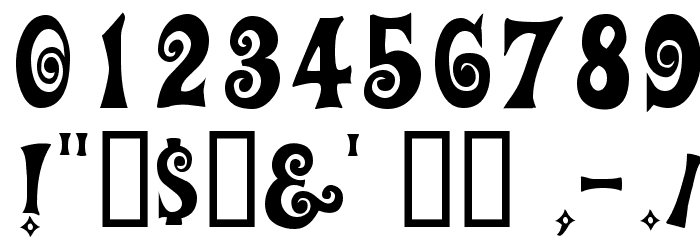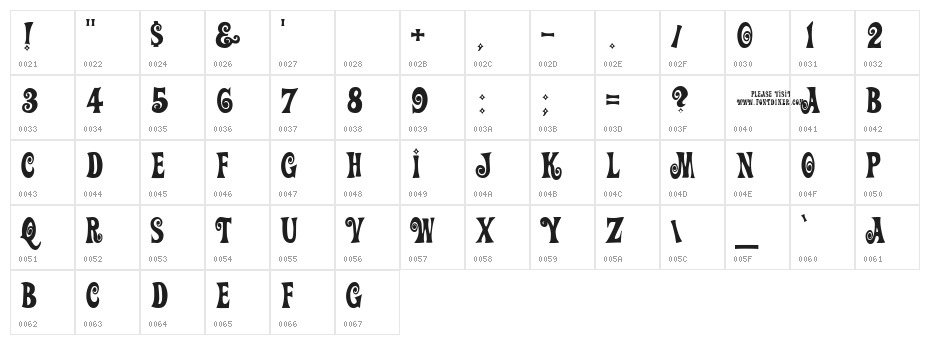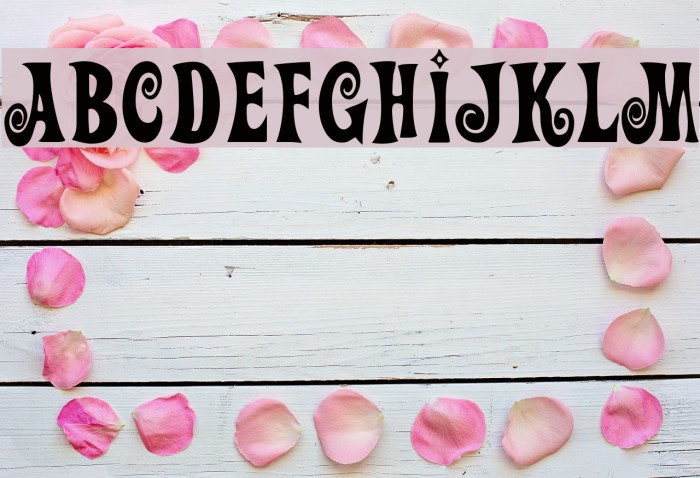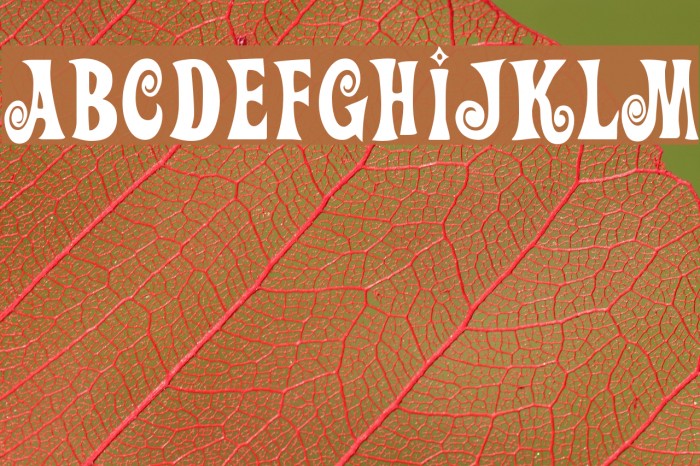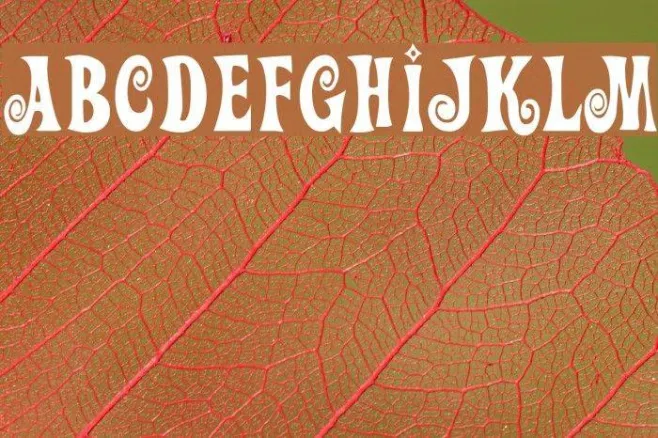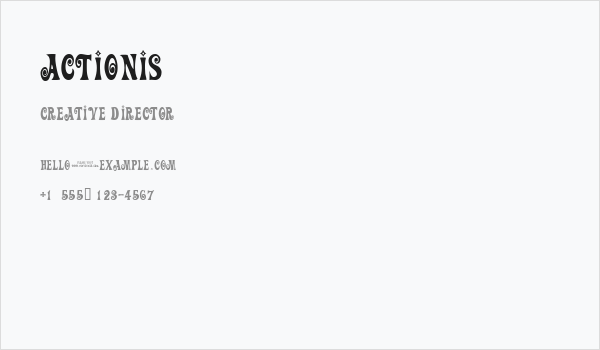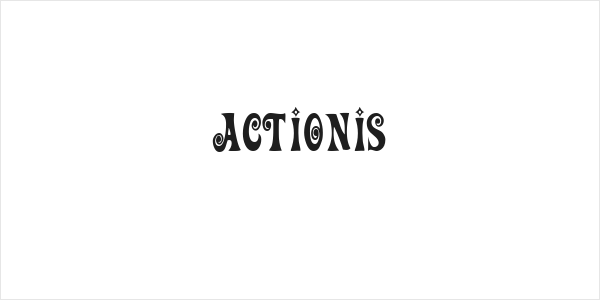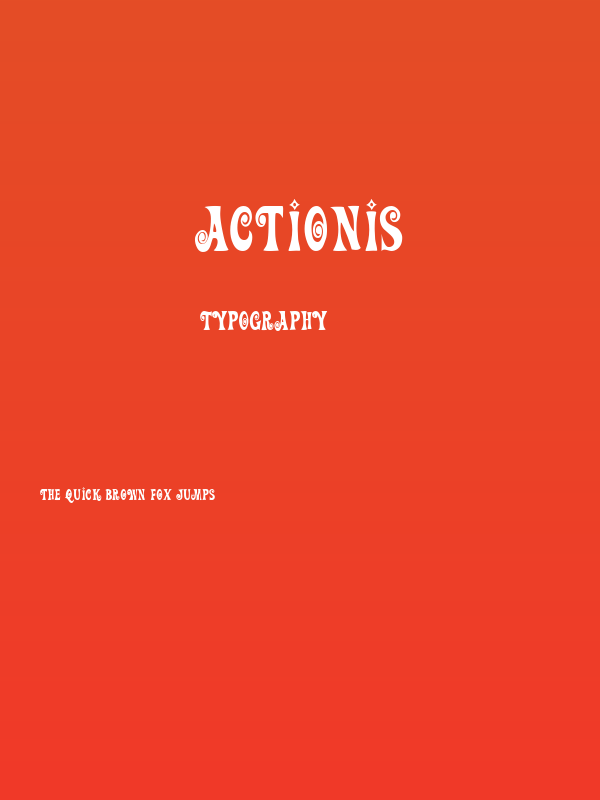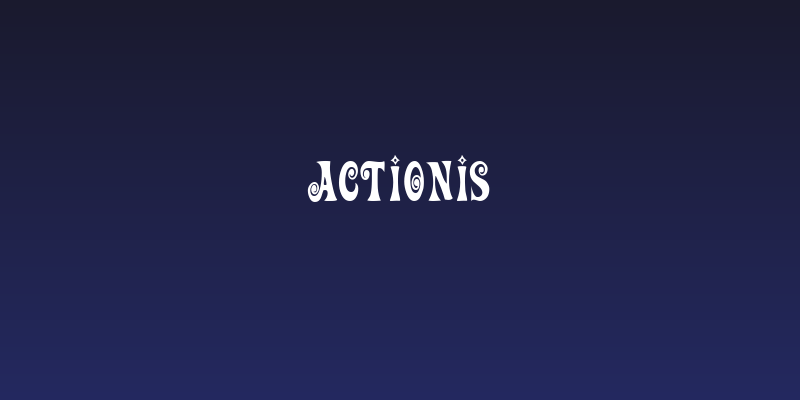
ActionIs Font
ActionIs Description
This font features a whimsical and playful design, characterized by its unique and exaggerated swirls and curls on certain characters. The letters have a bold and substantial presence, with varying stroke widths that add to its decorative appeal. The uppercase and lowercase letters maintain a consistent style, with the uppercase letters exhibiting more pronounced embellishments. The numerals and special characters follow the same ornate style, ensuring a cohesive look across all glyphs. This font is ideal for projects that require a touch of fun and creativity, making it suitable for eye-catching headlines and artistic designs.
| Proposed Projects | Ideal for children's book covers, playful posters, party invitations, and creative branding projects. |